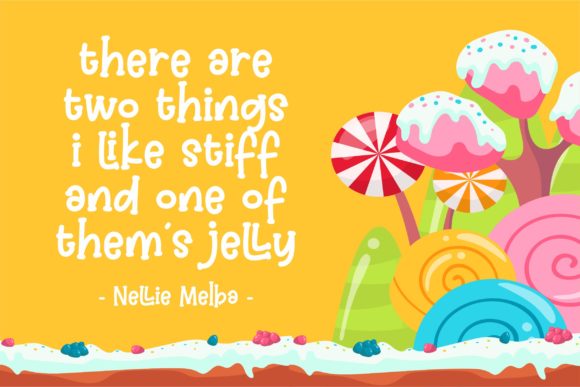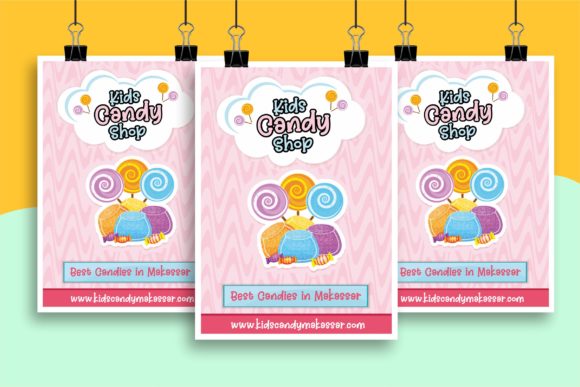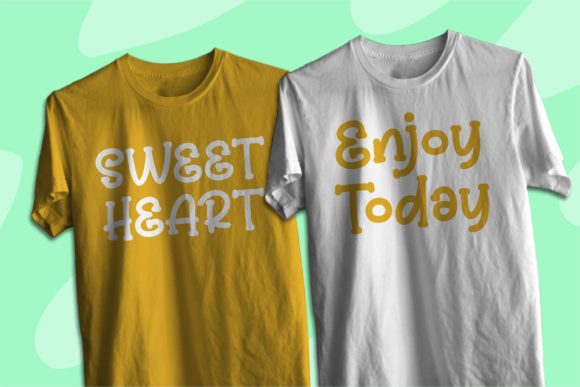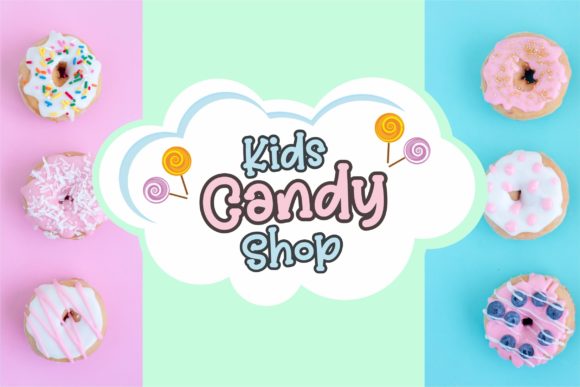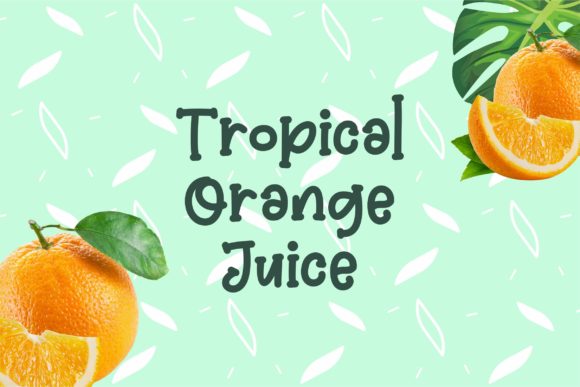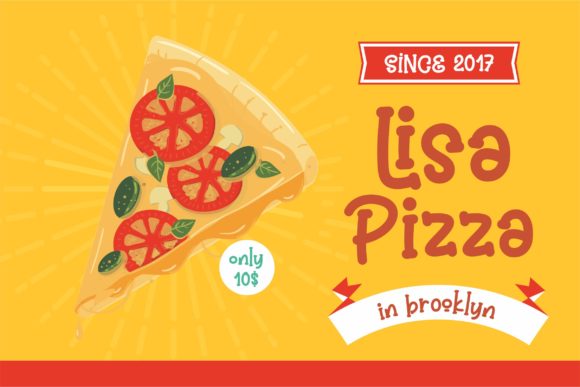
Introduction to Jelly Boots Font
Do you remember the moment when you stumbled upon the perfect font for your creative project? The one that brings your design to life and sets it apart from the rest? For designers, finding the right font can be a game-changer, and today we’re excited to introduce you to one that’s sure to become a favorite: Jelly Boots Font.
This charming display font is not only adorable, but also incredibly versatile, making it perfect for a wide range of creative endeavors, from letterheads and titles to stationery. Its casual charm and high-quality design make it a valuable addition to any designer’s toolkit, and the best part? You can download it for free, complete with a transparent background, making it easy to use in any design project.
Key Features of Jelly Boots Font
- High-quality design resource perfect for creative projects, including logos, graphics, and more.
- Features a unique and playful design with a transparent background, allowing for versatile usage.
- Designed to be highly legible and visually appealing at various resolutions, including 72 dpi and 300 dpi.
- Comes in a range of sizes, from 8pt to 72pt, making it suitable for various design applications.
- Perfect for designers and artists looking for a fun and creative font to enhance their design projects.
- Easy to use and customize, with a wide range of compatibility with popular design software and operating systems.
Honest Review: Jelly Boots Font
I recently stumbled upon the Jelly Boots Font, a free download that I must say has been a pleasant surprise. As a designer, I’m always on the lookout for high-quality design resources that can elevate my creative projects.
What works well: ✨ The font is incredibly versatile, with a wide range of styles and weights that can be used for everything from bold headings to subtle body text. The transparent background is a huge bonus, making it easy to layer over images or other design elements.
What I love about the Jelly Boots Font is its playful, hand-drawn feel. It’s perfect for projects that need a touch of whimsy and personality.
- Key Features: Versatile, wide range of styles and weights, transparent background
- Design Style: Hand-drawn, playful, whimsical
- Best for: Creative projects, branding, advertising, editorial design
Overall, I’m really impressed with the Jelly Boots Font. It’s a great addition to any designer’s toolkit, and I’m excited to see where it takes my creative projects.
Limitations: ⚠️ While the font is high-quality, it’s worth noting that it’s a free download, which means it may not be as polished or comprehensive as a paid font.
Tips for Getting the Most Out of Jelly Boots Font
For optimal results, use the Jelly Boots Font on a transparent background. This will allow you to layer the font over other design elements, creating a unique and eye-catching effect. Experiment with different font sizes, colors, and combinations to find the perfect look for your project.
Common Use Cases for Jelly Boots Font
The Jelly Boots Font is ideal for creative projects that require a fun, playful, and whimsical touch. Use it for social media graphics, children’s books, or educational materials. The font’s high-quality design and transparent background make it perfect for various design applications.